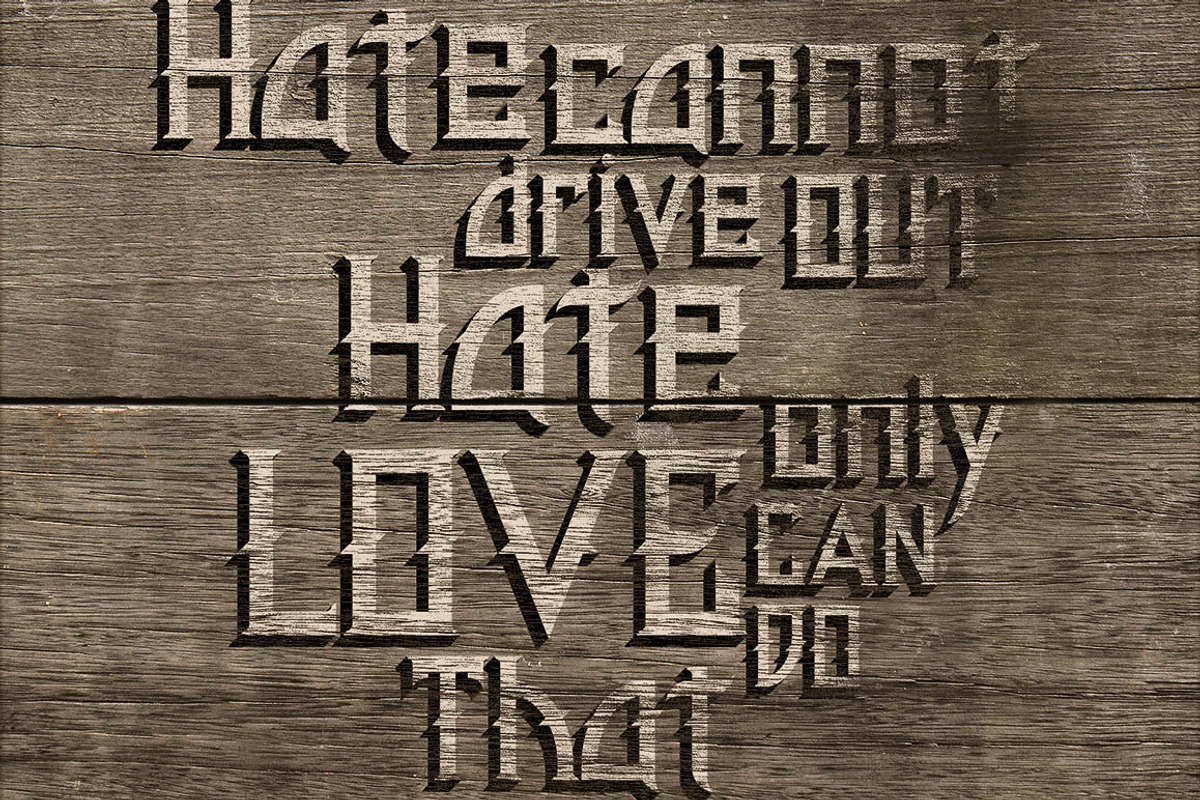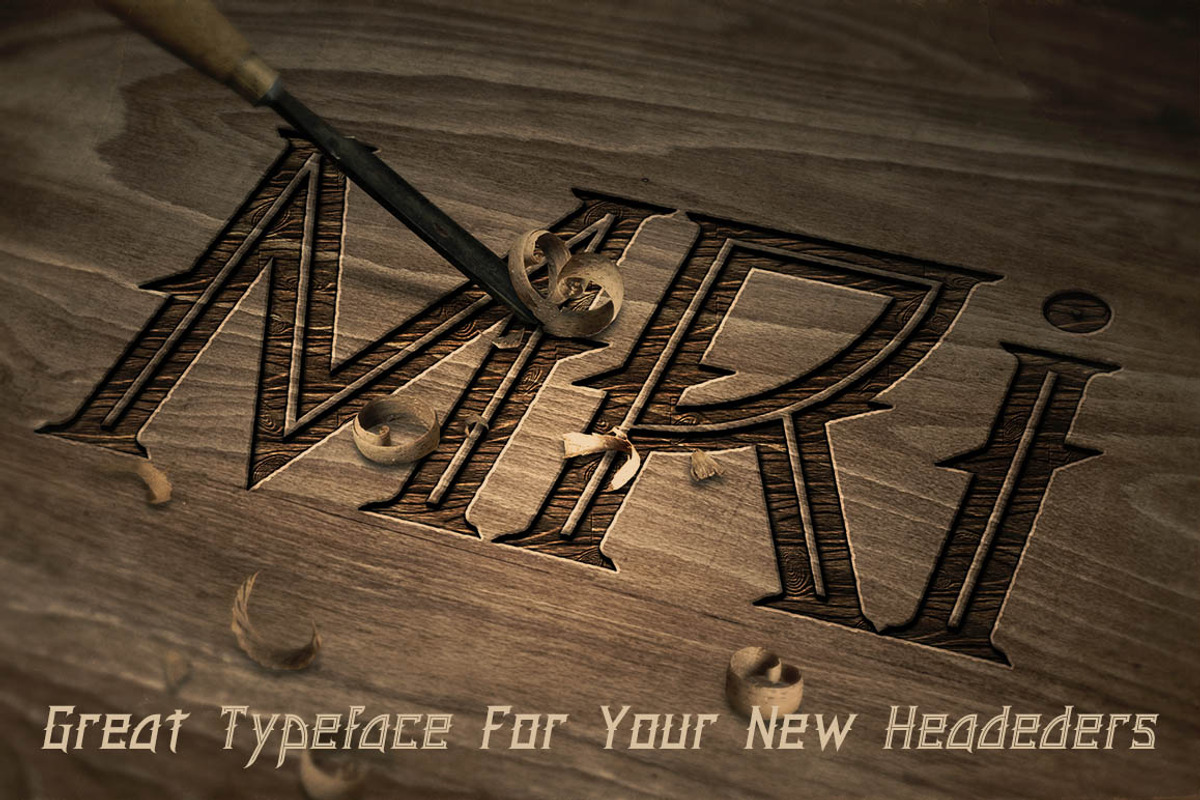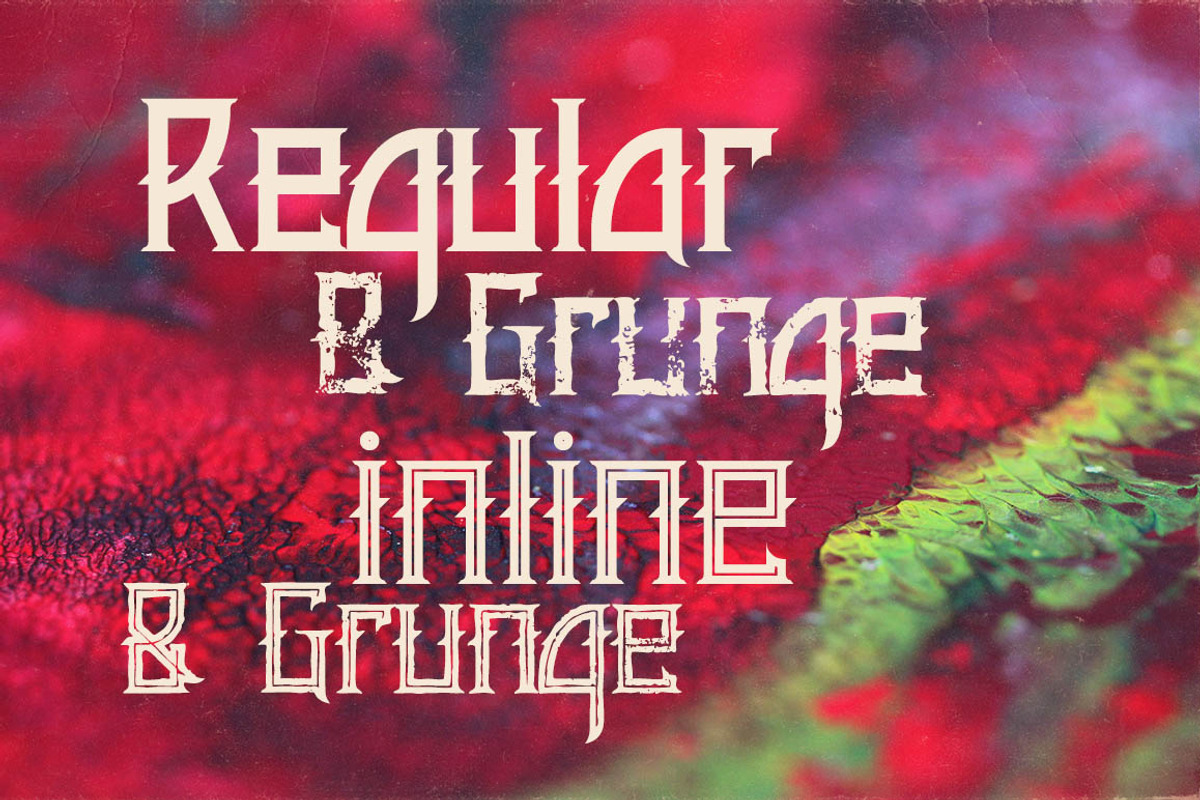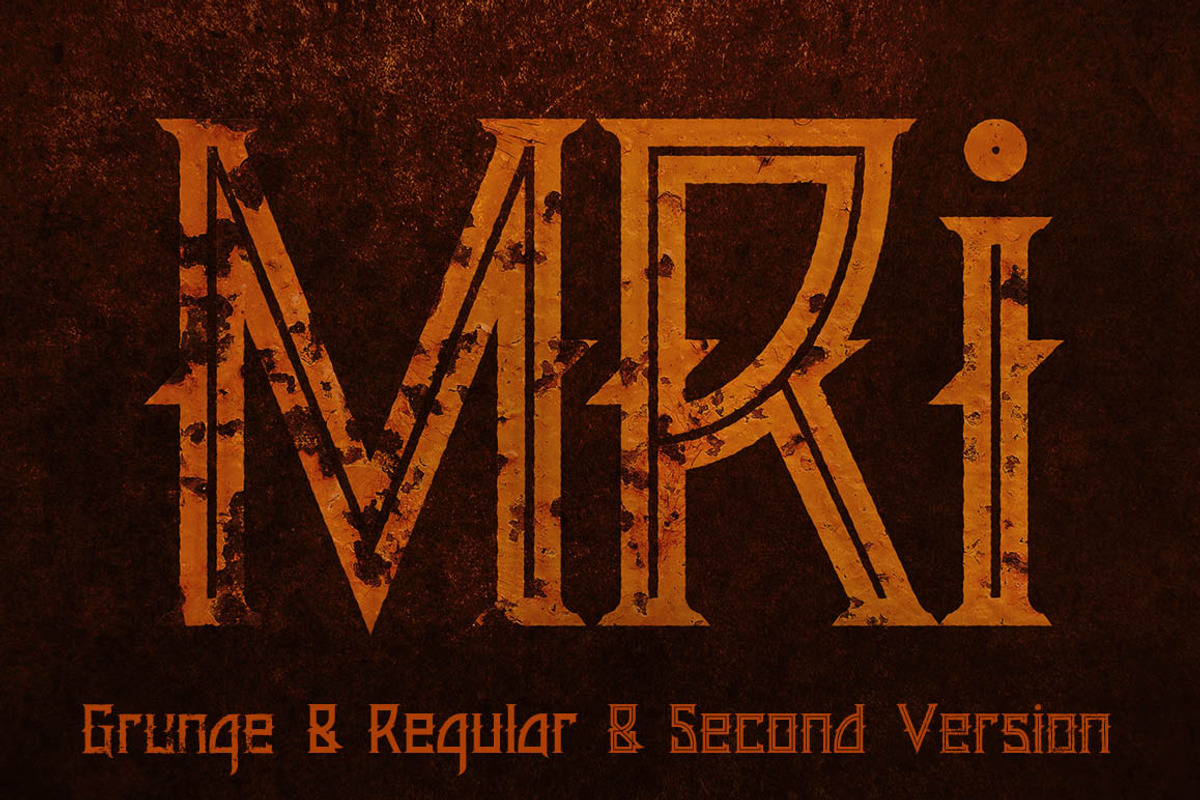
Minoru Font
Minoru Font by MIIM is a font selected for branding, posters, packaging, typography.
Why Minoru Font is worth a look
Minoru Font by MIIM fits naturally into Branding, posters, packaging, typography.